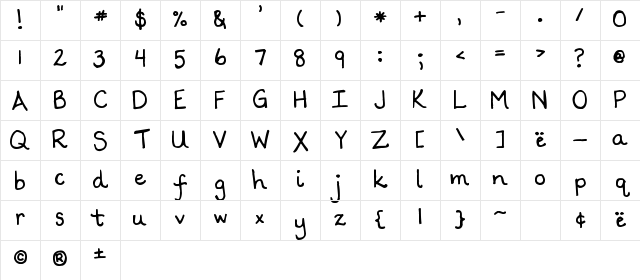
Scrogglet Regular Free Font
Scrogglet Regular
Design Context for Scrogglet
Scrogglet is a composed and adaptable typeface that performs quietly and consistently across a wide range of design contexts.